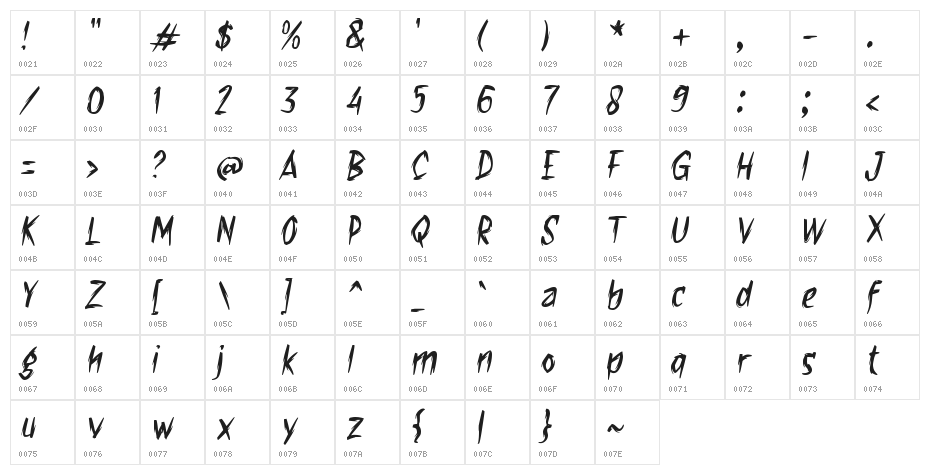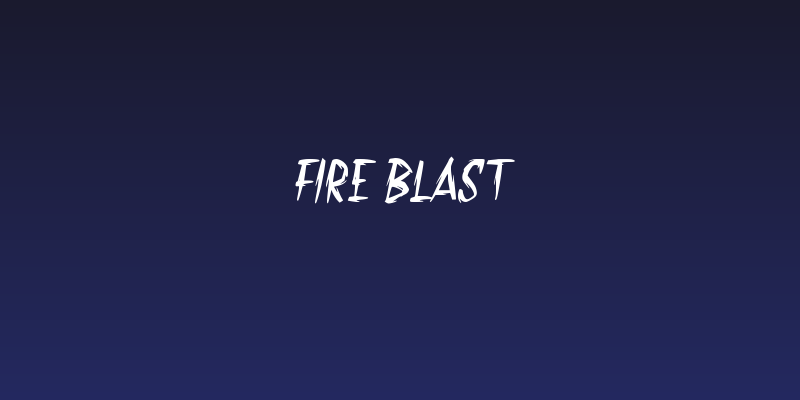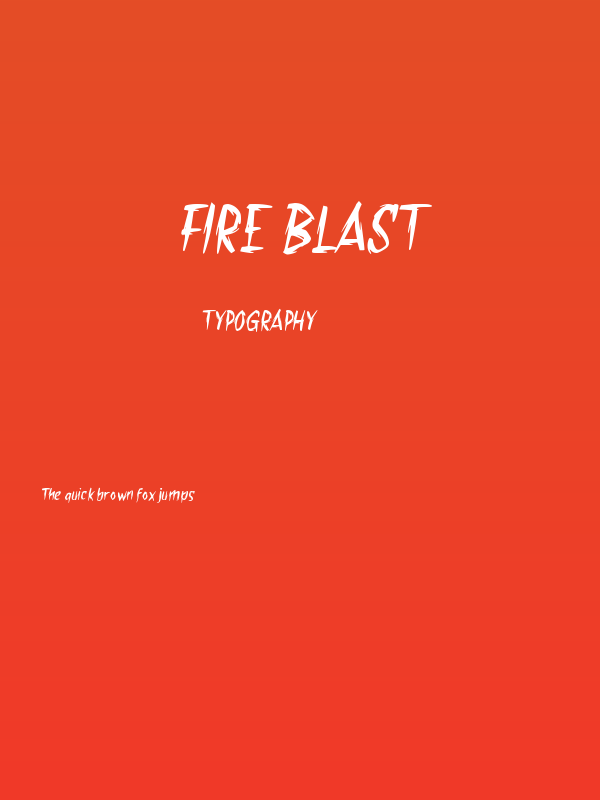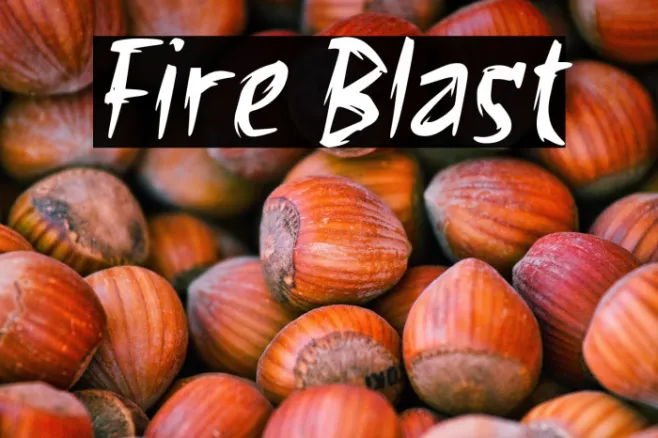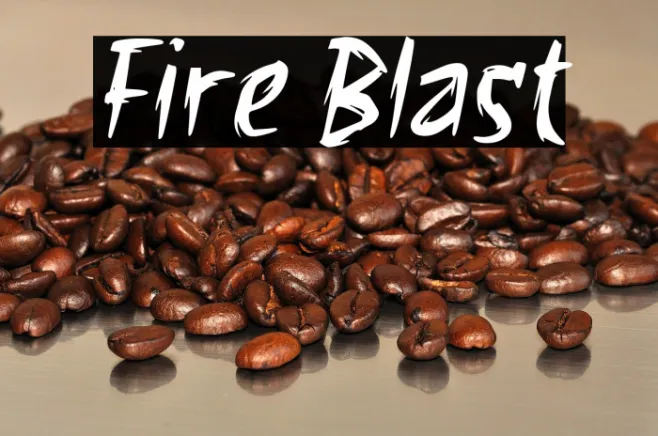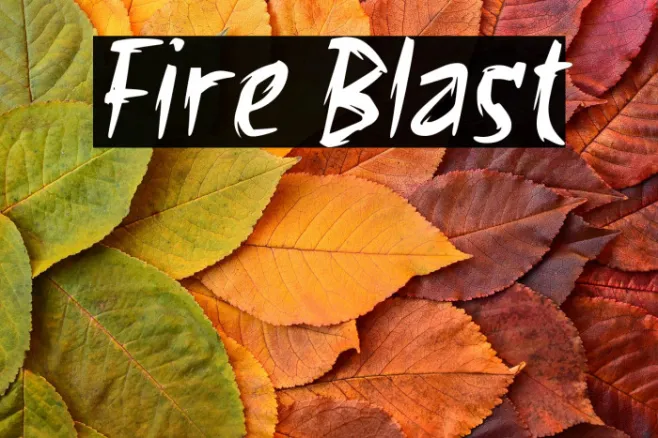
Fire Blast Font
Fire Blast Description
This font exudes an energetic and dynamic feel, characterized by its sharp, jagged edges and bold strokes. The letters appear as if they are in motion, with a fiery, aggressive style that suggests speed and intensity. The uppercase and lowercase letters maintain a consistent style, with exaggerated curves and pointed terminals. Numbers and special characters follow the same aesthetic, ensuring a cohesive look across all text elements. The overall appearance is striking and attention-grabbing, making it ideal for projects that require a bold statement.